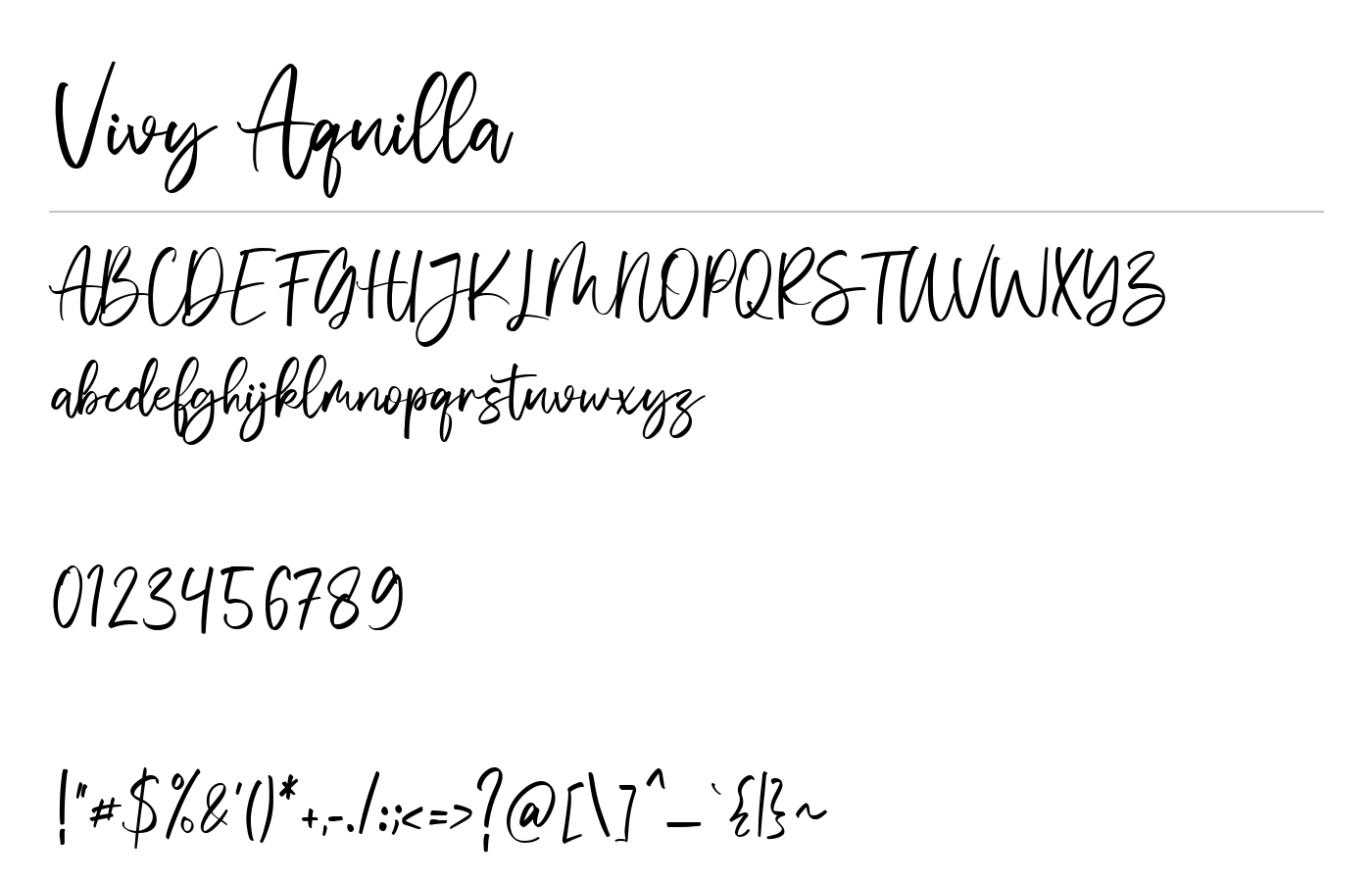
Vivy Aquilla is a lively, handwritten script font featuring smooth, flowing strokes with moderate contrast and a casual yet elegant style. Its tall, slender letterforms with unique flourishes and organic curves give it a personal and friendly feel, making it perfect for creative branding, invitations, and stylish headlines. This font works well in designs that seek a modern, approachable elegance with a touch of individuality.
Vivy Aquilla Font
About Vivy Aquilla Font
| Font family | Vivy Aquilla Font |
| Designer | StringLabs |